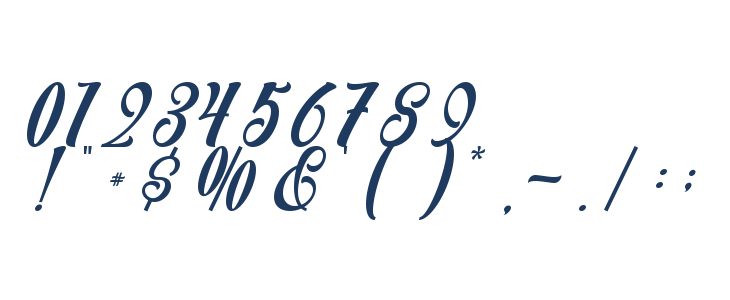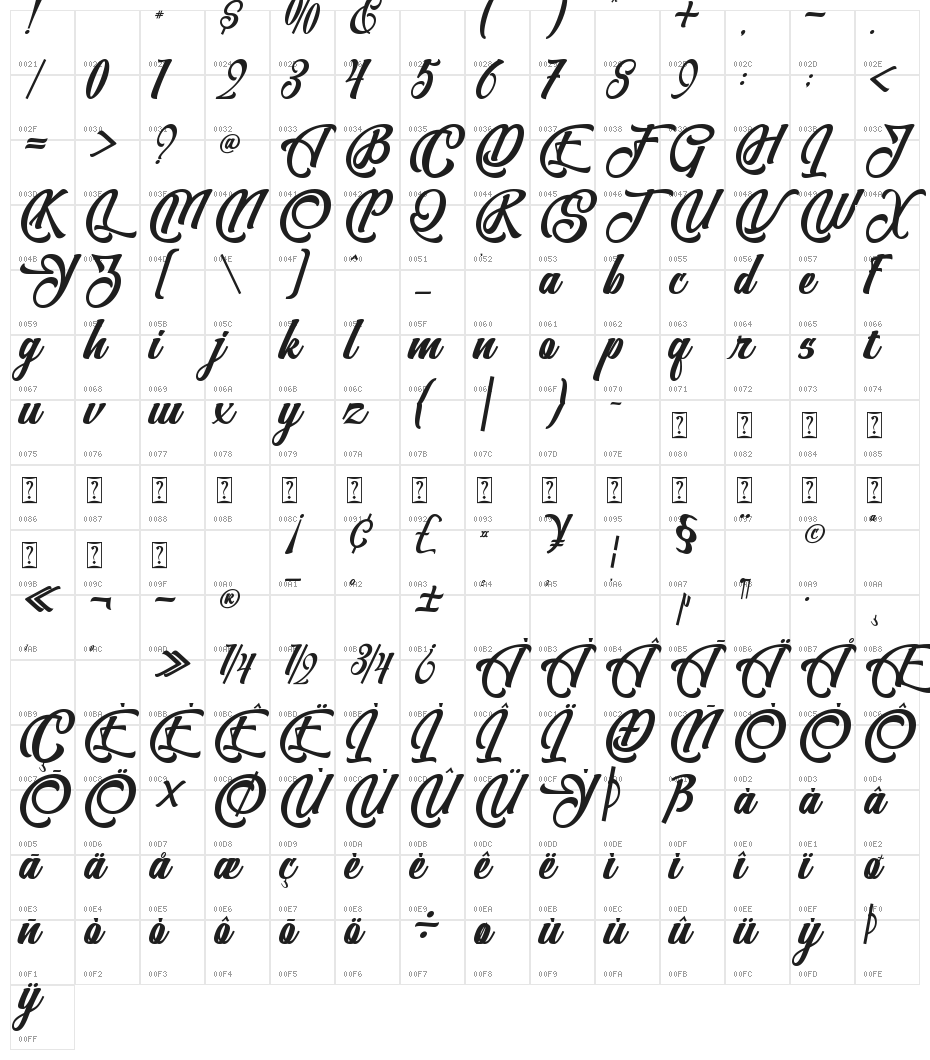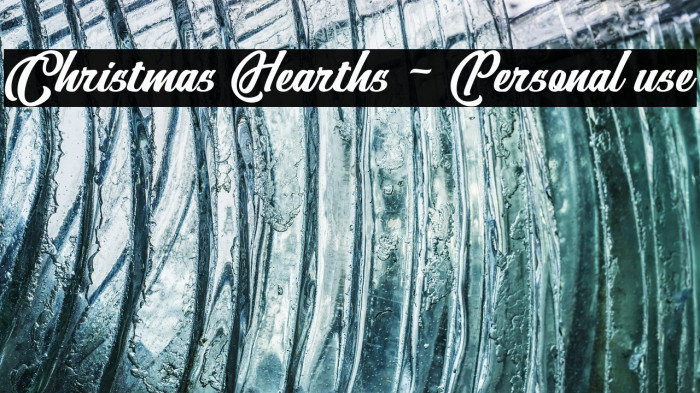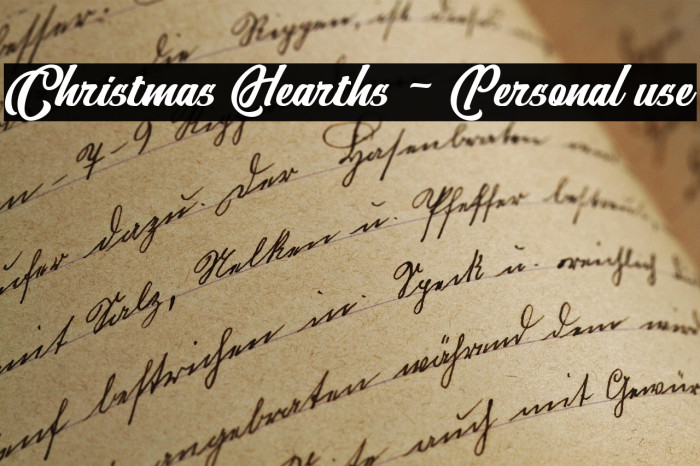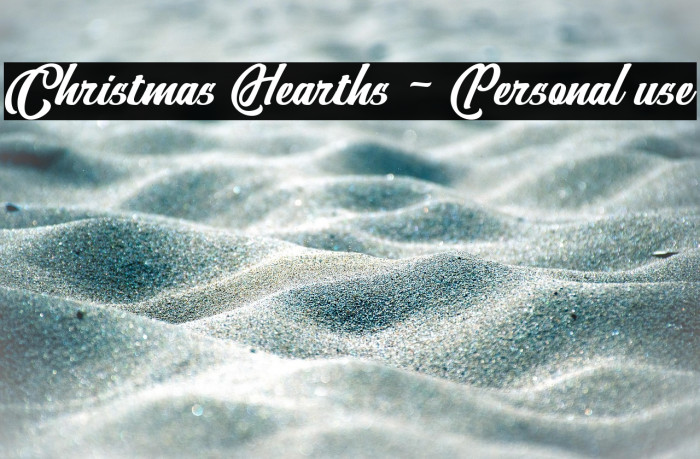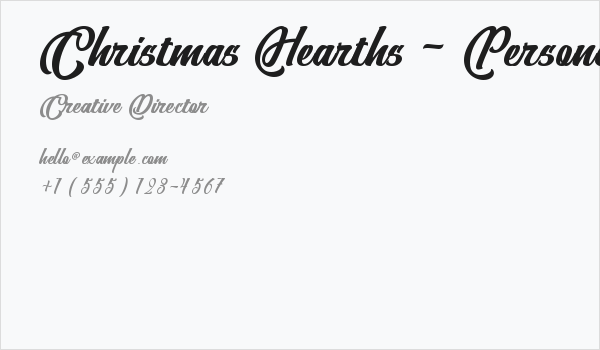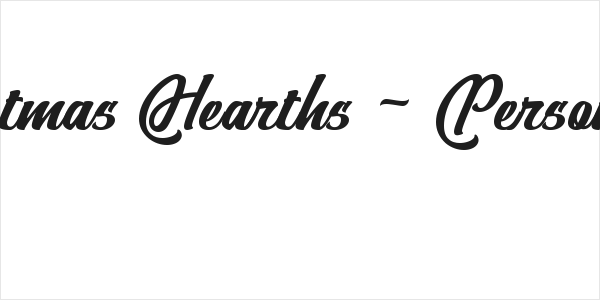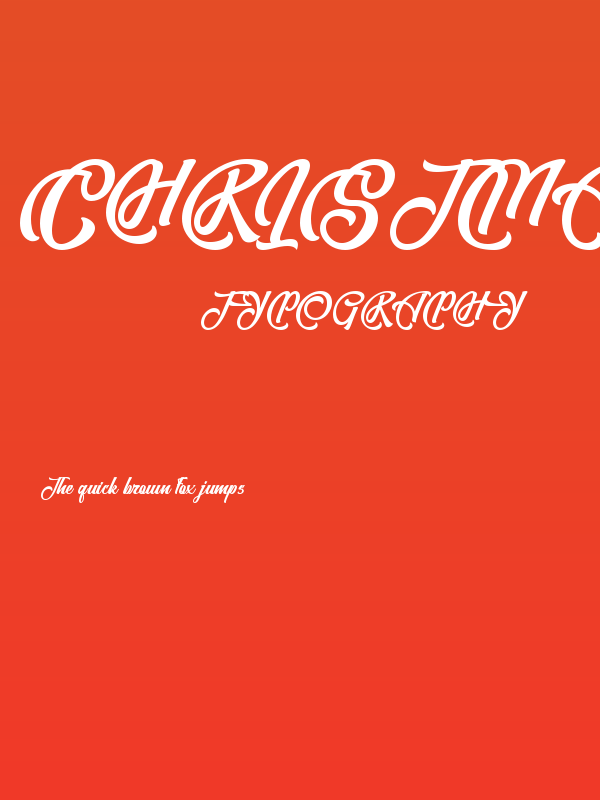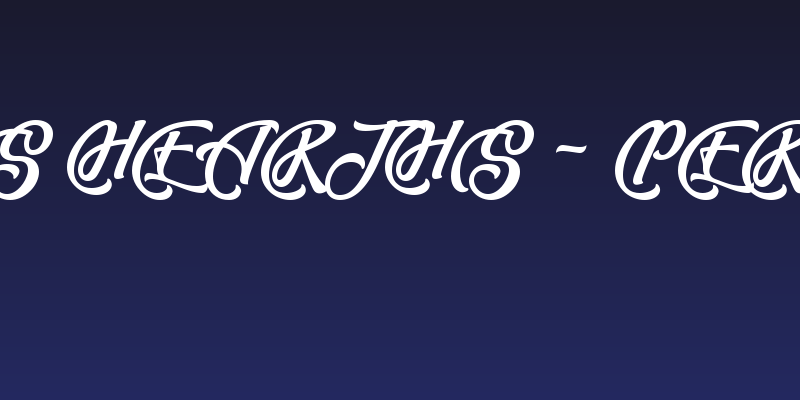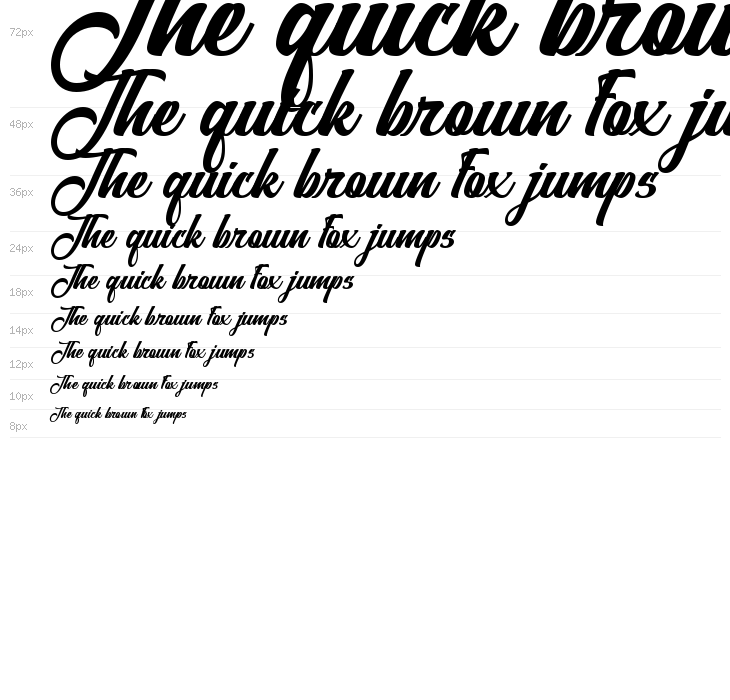
Christmas Hearths - Personal use Font
Christmas Hearths - Personal use Description
A bold, flowing script font with dramatic, sweeping curves and high contrast between thick and thin strokes. The uppercase letters are ornate and decorative, while the lowercase letters are more compact and connected, giving a handwritten, calligraphic appearance. Numerals and punctuation maintain the same expressive style.
| Overall Style | Decorative, Festive, Handwritten |
| Use Case | Headlines, Logos, Invitations, Greeting cards |
| Proposed Projects | Holiday cards, invitations, festive branding, event posters, decorative headlines. |